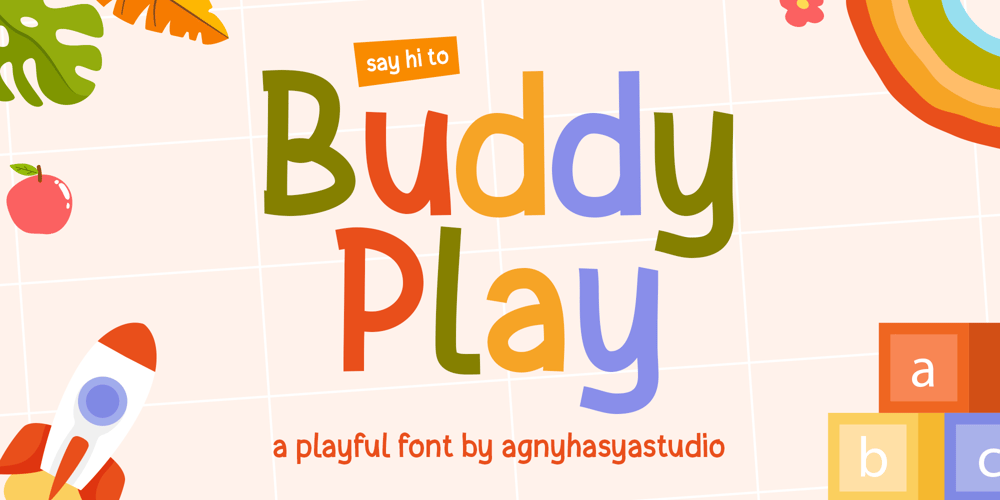
Buddy Play Font Family was designed by Firman Maulana and published by Agny Hasya Studio. Buddy Play contains 2 styles and family package options. Buddy Play is a Playful, Fun, and Cute Typeface. Come in 2 (two) styles (regular & slant) and is created with some alternate and ligature. Featured with Uppercase & Lowercase, Numeral & Punctuation, Multilingual Support, and Opentype FeaturesPerfect for your design projects like Children or School Projects, Branding, Advertising, Product Designs, Magazine Designs, Book/Cover Title Designs, Art Quotes, Special Events, Labels, Product Packaging, and more.